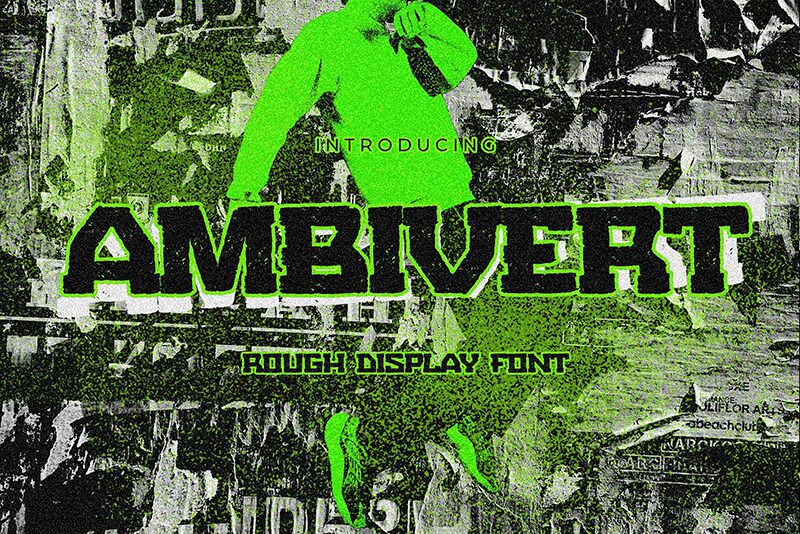
Ambivert
Ambivert font, designed by Gassstype, captivates with its distinctively eroded style and bold presence. This display typeface combines an expansive form with a rugged texture, making each letter uniquely expressive. The character of Ambivert resonates with an adventurous spirit while retaining an approachable charm.
Its striking aesthetic is perfect for eye-catching headlines, dynamic branding projects, or artistic posters that demand attention. Ambivert excels in environments that benefit from a sense of raw authenticity-ideal for creative businesses and lifestyle brands seeking to convey originality and grit. Whether in digital applications or print media, this font promises to leave a memorable mark on any design.